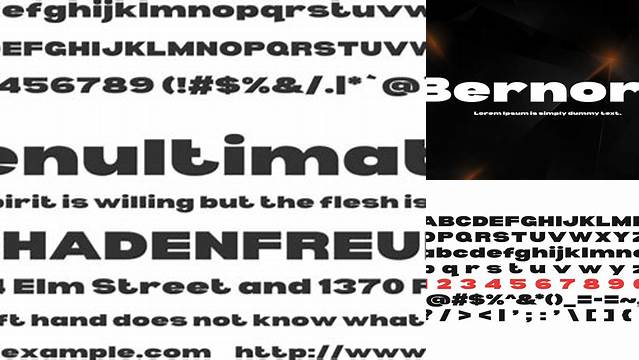
Hey everyone! If you're looking for a sleek, modern font to spice up your projects, you've probably stumbled upon Bernoru Sans. And guess what? You can actually get Bernoru Sans Font Free! This guide is your one-stop shop for everything you need to know about this awesome typeface. We'll dive deep into where to snag it, how to use it, and why it's such a fantastic choice for your design needs. So, let's get started, shall we?
Bernoru Sans: A Closer Look at the Font Family
Alright, guys, before we jump into the free download stuff, let's appreciate the font itself. Bernoru Sans is a contemporary sans-serif font, meaning it doesn't have those little decorative strokes (serifs) at the end of the letters. This gives it a clean, minimalist look that's super versatile. The design of Bernoru Sans is all about balance and readability. The letterforms are carefully crafted to be easily legible at various sizes, making it perfect for everything from headlines to body text. The font family typically includes several weights and styles, allowing you to create visual hierarchy and add emphasis to your designs. You might find light, regular, bold, and even italic versions. This variety lets you play around with different looks and feels, ensuring you can find the perfect fit for your project. The creators of Bernoru Sans have put a lot of thought into making it both aesthetically pleasing and highly functional. This makes it a popular choice for designers across various industries. Whether you're working on a website, a print design, or a logo, Bernoru Sans can add a touch of sophistication and modernity. The simplicity of this font family makes it a great choice for branding. It creates a consistent and recognizable visual identity. This will help your audience feel your message easily. The creators have really nailed the balance between form and function, making it a joy to work with. You can use it to create a professional and polished look. You can also combine it with other fonts to achieve a unique aesthetic. The versatility of Bernoru Sans is one of its biggest strengths. It can adapt to pretty much any design scenario. That's why you're seeing it everywhere. Seriously, it is a game-changer for any project.
Why Bernoru Sans Stands Out in the Font World
So, what makes Bernoru Sans special? Well, first off, its clean and modern aesthetic is a major draw. In a world of cluttered designs, this font offers a breath of fresh air. It's a fantastic choice for projects that want to convey a sense of sophistication, clarity, or simplicity. This font is also incredibly readable. Its design ensures that your message comes across loud and clear. Readability is super important, especially when you're dealing with large blocks of text. You want your audience to actually read what you've written. The font also plays well with others. It's versatile enough to pair with different font styles, allowing you to create visually interesting designs without clashing. Plus, it's often available in a variety of weights and styles. This gives you the flexibility to create visual emphasis and hierarchy within your design. You can use bold versions for headlines and lighter versions for body text. This helps guide the reader's eye. The legibility of Bernoru Sans is one of its strongest points. This font is very easy to read at different sizes. This makes it a good choice for different uses, such as websites, apps, and print materials. Another factor that makes Bernoru Sans stand out is its versatility. It's suitable for different design purposes, like logos, websites, apps, and marketing materials. This makes it a reliable option for creatives.